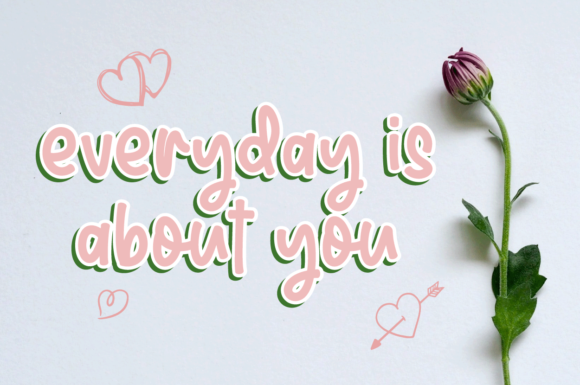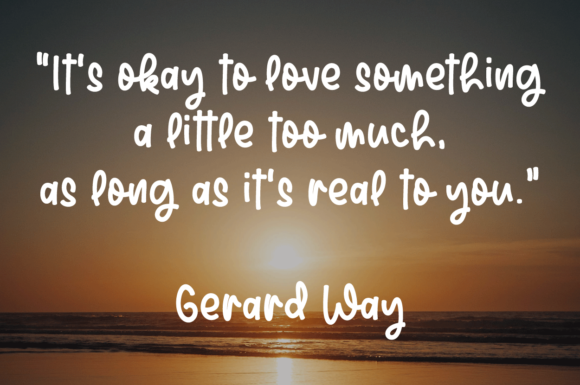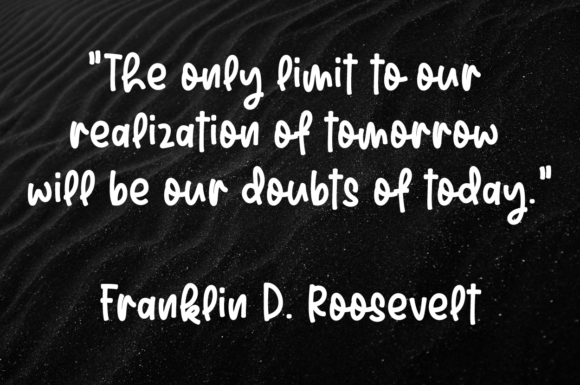
Introduction to Leoa Family Font
Leoa Family is a quirky handwritten font, described by a chic touch, perfect for your favorite projects.
Key Features of Leoa Family Font
Why Choose Leoa Family Font?
Leoa Family Font offers exceptional quality and versatility, making it a valuable addition to your design toolkit. Whether you’re creating for personal projects or commercial use, Leoa Family Font delivers professional results.